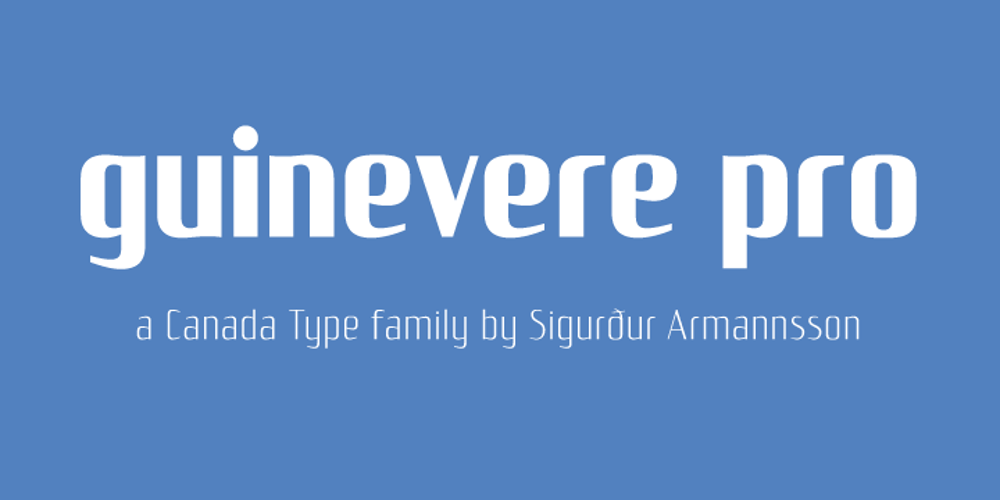
Guinevere Pro Font Family was designed by Sigurdur Armannsson and published by Canada Type. Guinevere Pro contains 4 styles and family package options. Guinevere Pro is a typeface designed by Icelandic art director Sigurdur Armannsson. It started in 2001 as simple hand-drawn sketches of a few letters built from modules, then became an experiment with four goals: – Construct an original alphabet from a specific set of predetermined modules. – See how certain letter forms built without said modules would behave within the totality of the module-constructed alphabet. – See if certain letters would actually enforce their own shapes to be drawn a certain way within the totality of the typeface. Likewise, see if the totality of the alphabet demands that individual letters be drawn in a specific way, and if so, how much room for variation would there be? – See how all of the above reacts/changes to implementing the alphabet across different weights. The experiment was finessed and re-worked over many years of technology changes, and Guinevere Pro is the final outcome, ten years later. The Guinevere Pro set is four cross-platform Open Type fonts, with built-in small caps, alternates, ligatures, and support for a wide range of Latin-based languages.